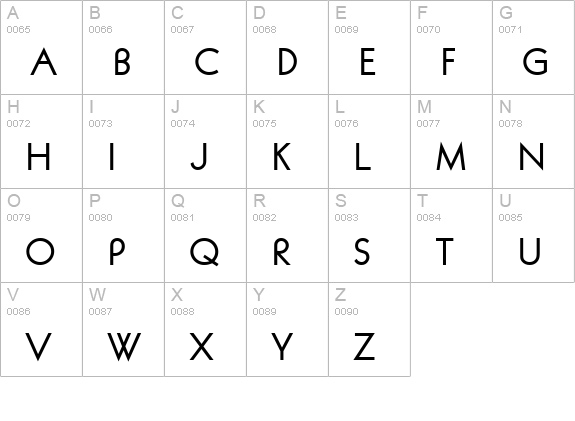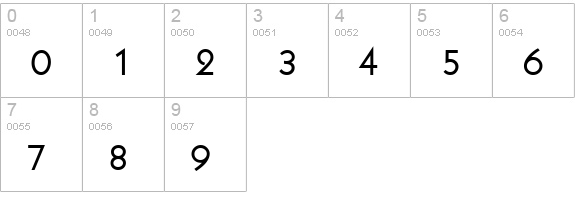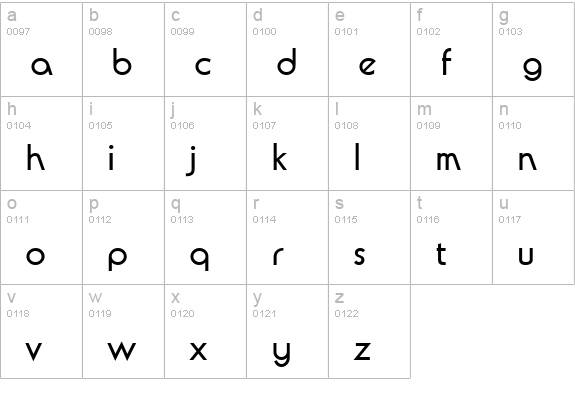
AvalonURWTMed Font Details
AvalonURWTMed font is a versatile and stylish typeface that exudes elegance and sophistication. With its sleek and modern design, this font is perfect for a wide range of projects, from branding to editorial design. Its clean lines and balanced proportions make it easy to read and a pleasure to work with. What sets AvalonURWTMed font apart is that it is available for free download at FontsMarket.com. This means that you can easily access this high-quality font without any cost, making it a valuable addition to your font collection. Whether you're a designer looking for a new font to elevate your projects or a business owner in need of a professional typeface, AvalonURWTMed font is sure to impress with its timeless appeal and effortless charm.